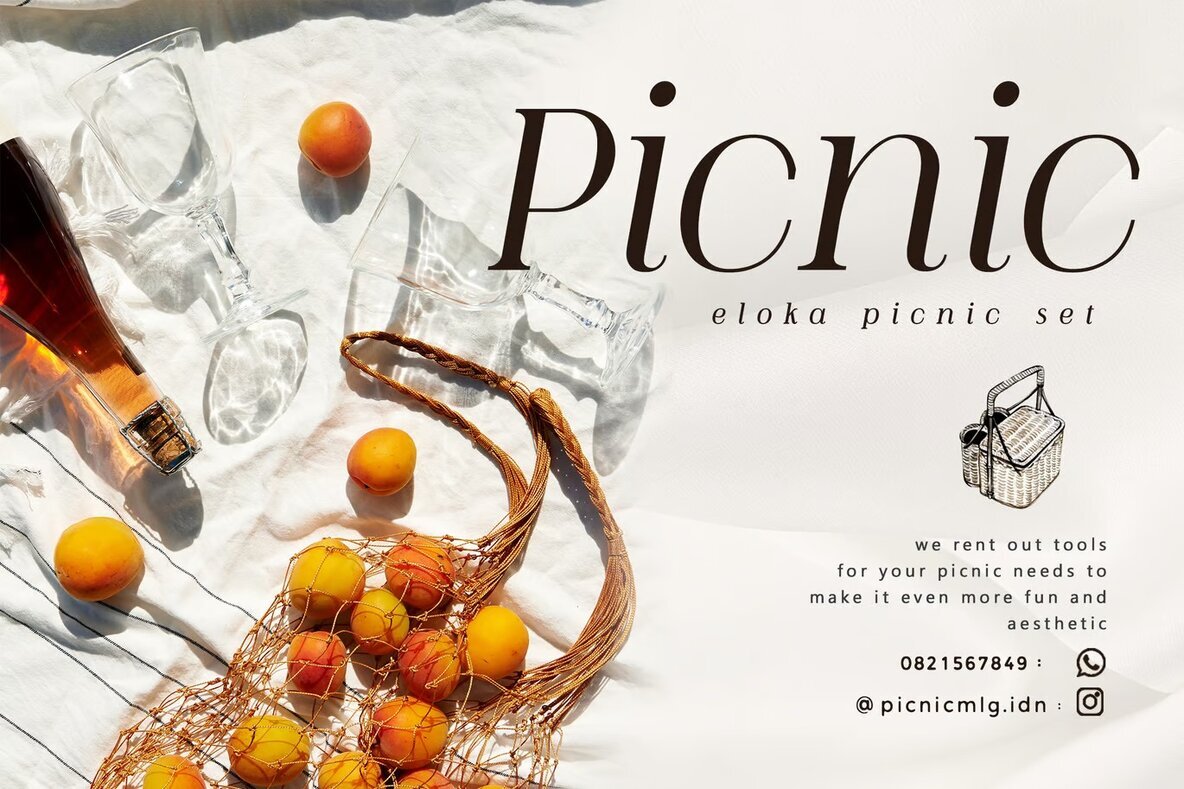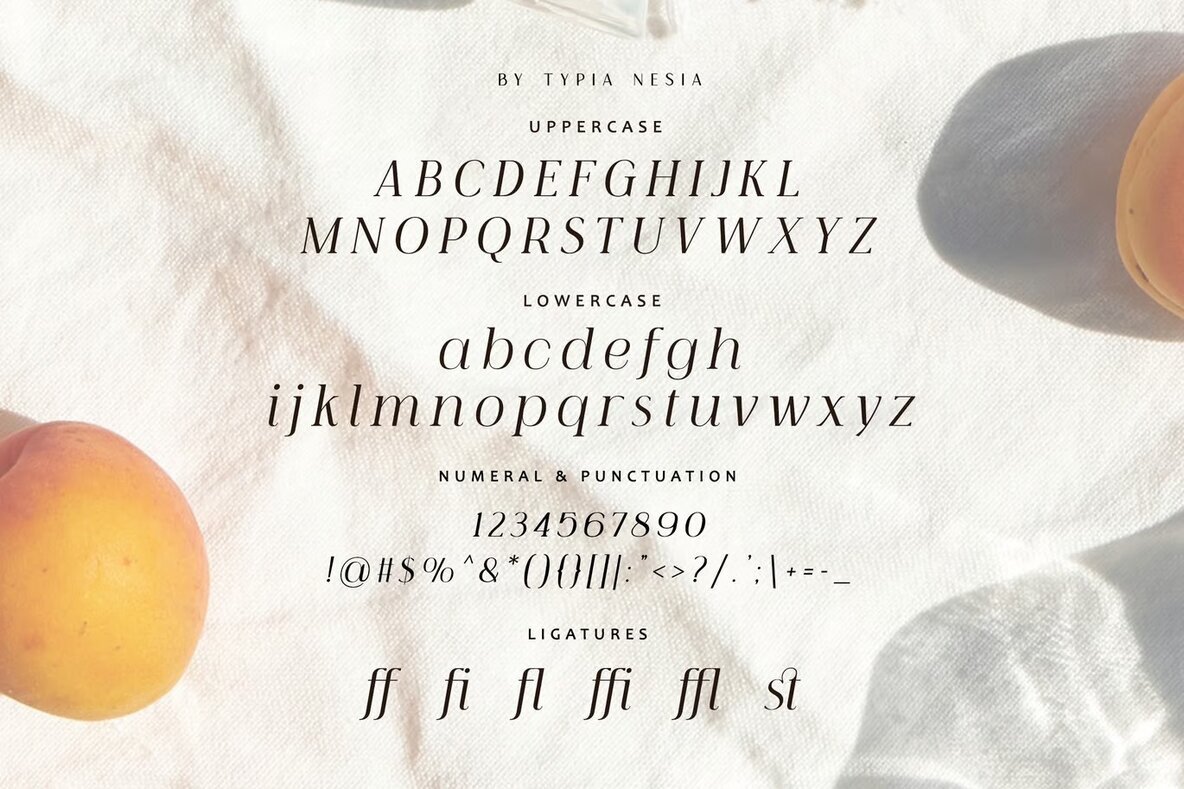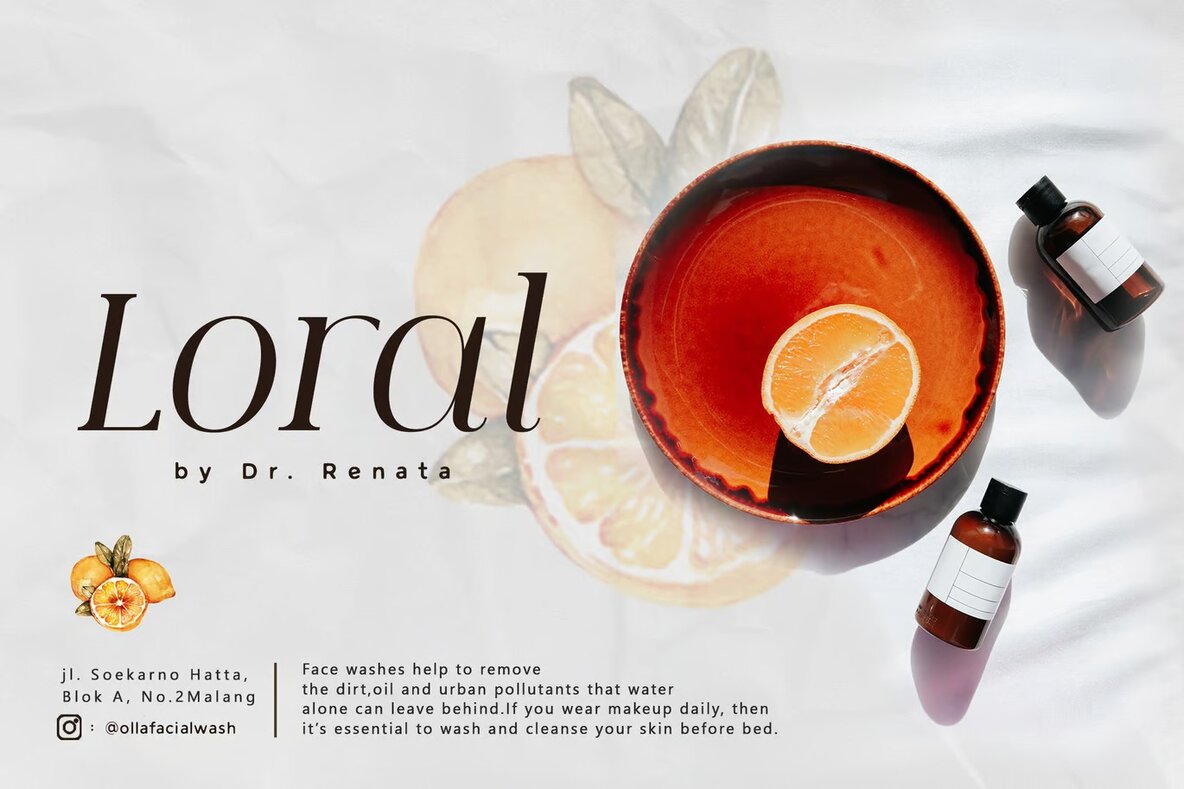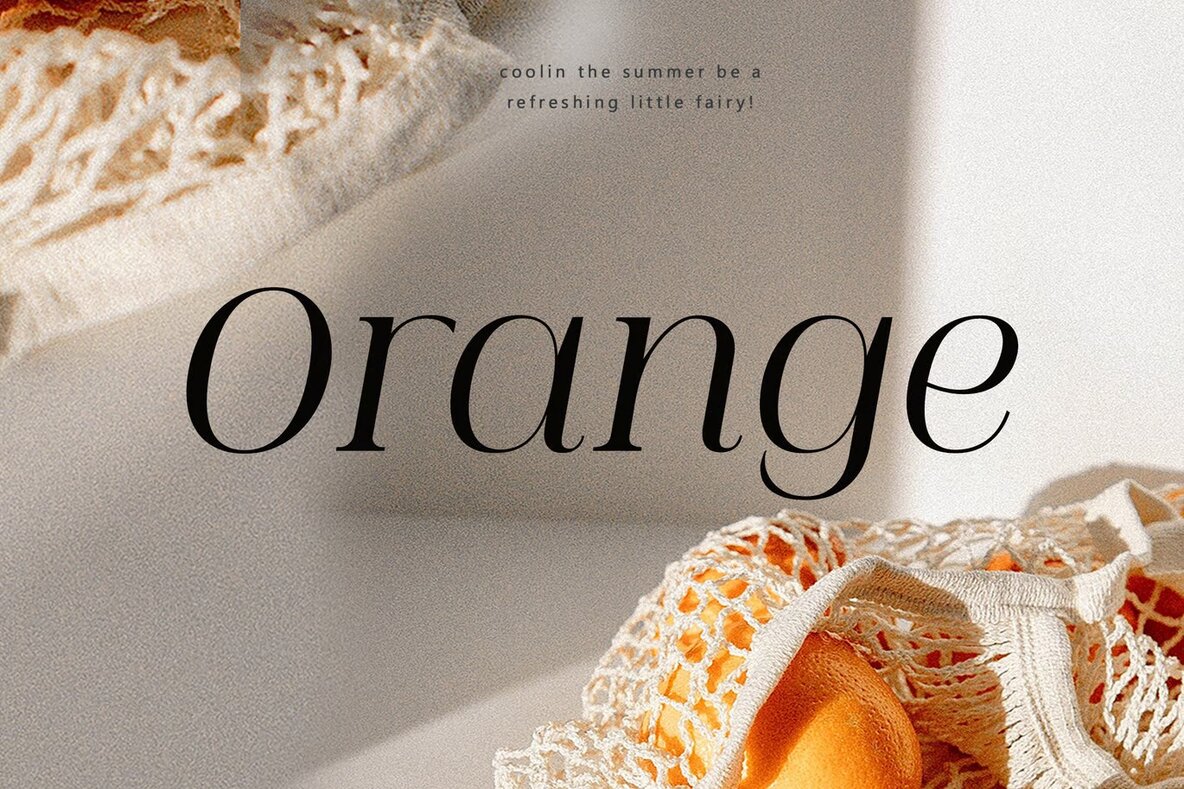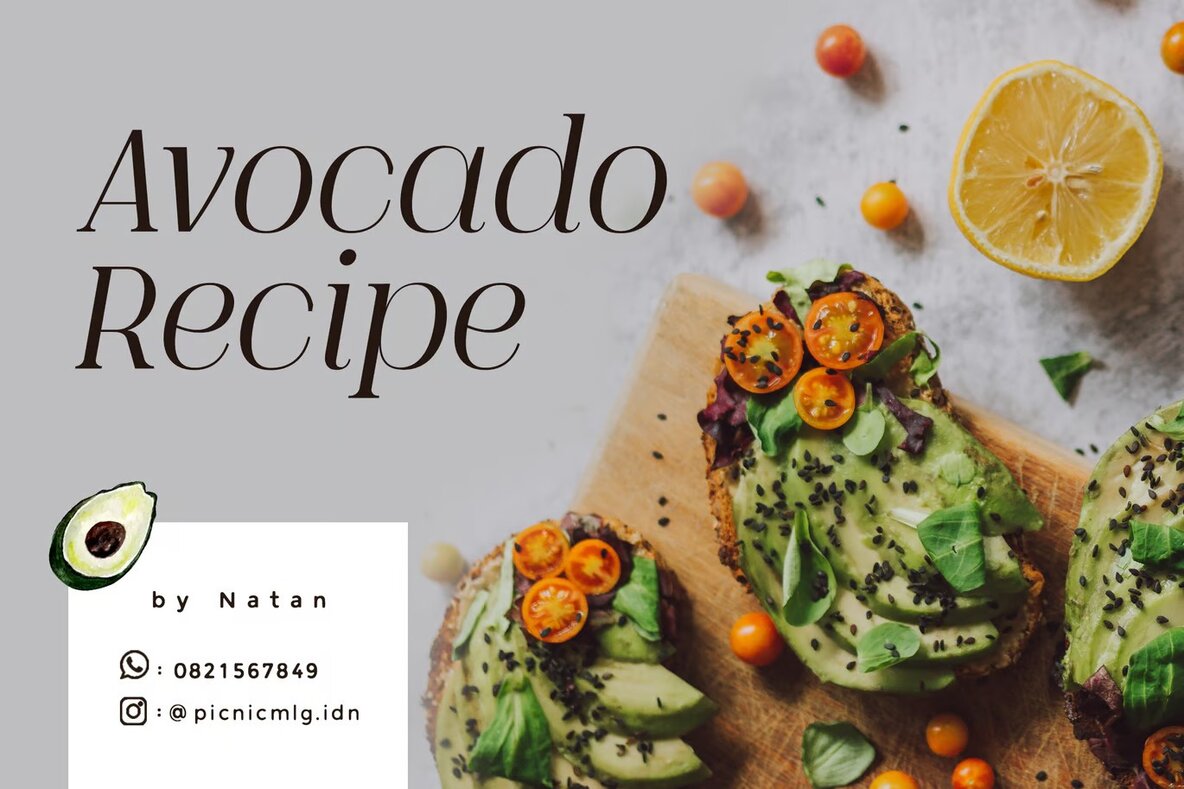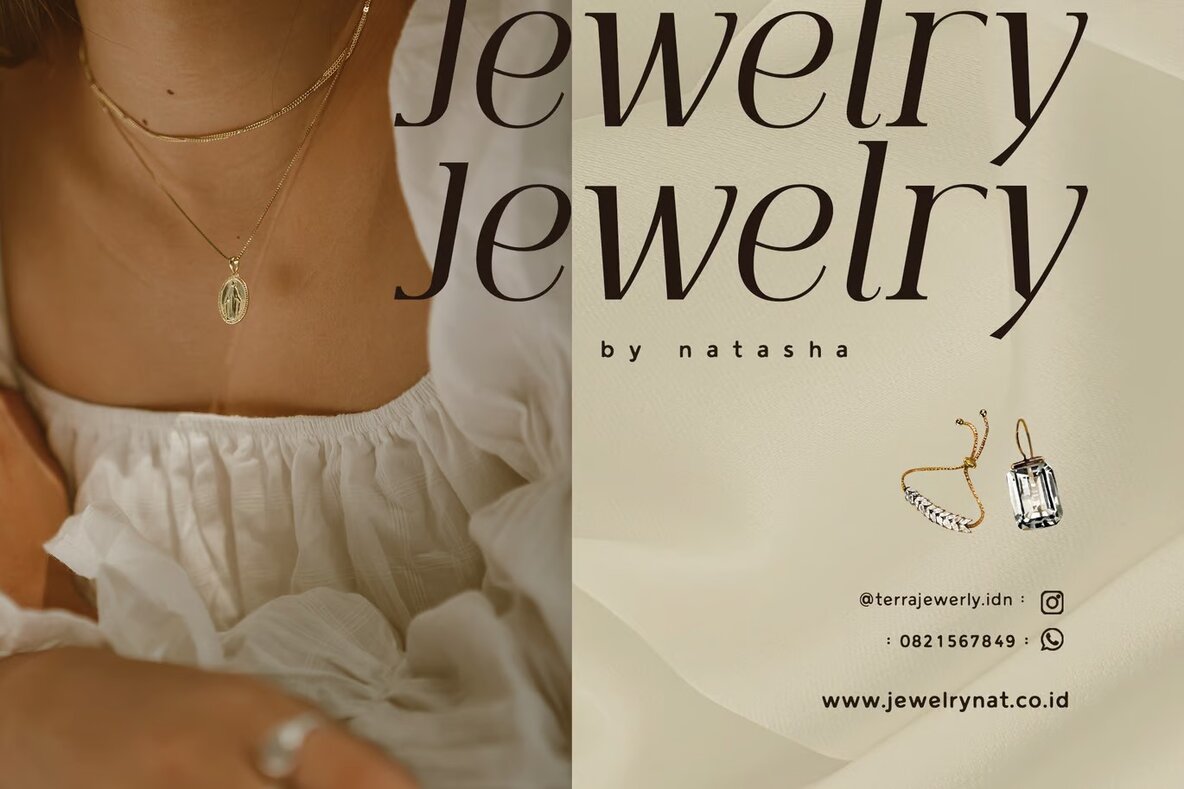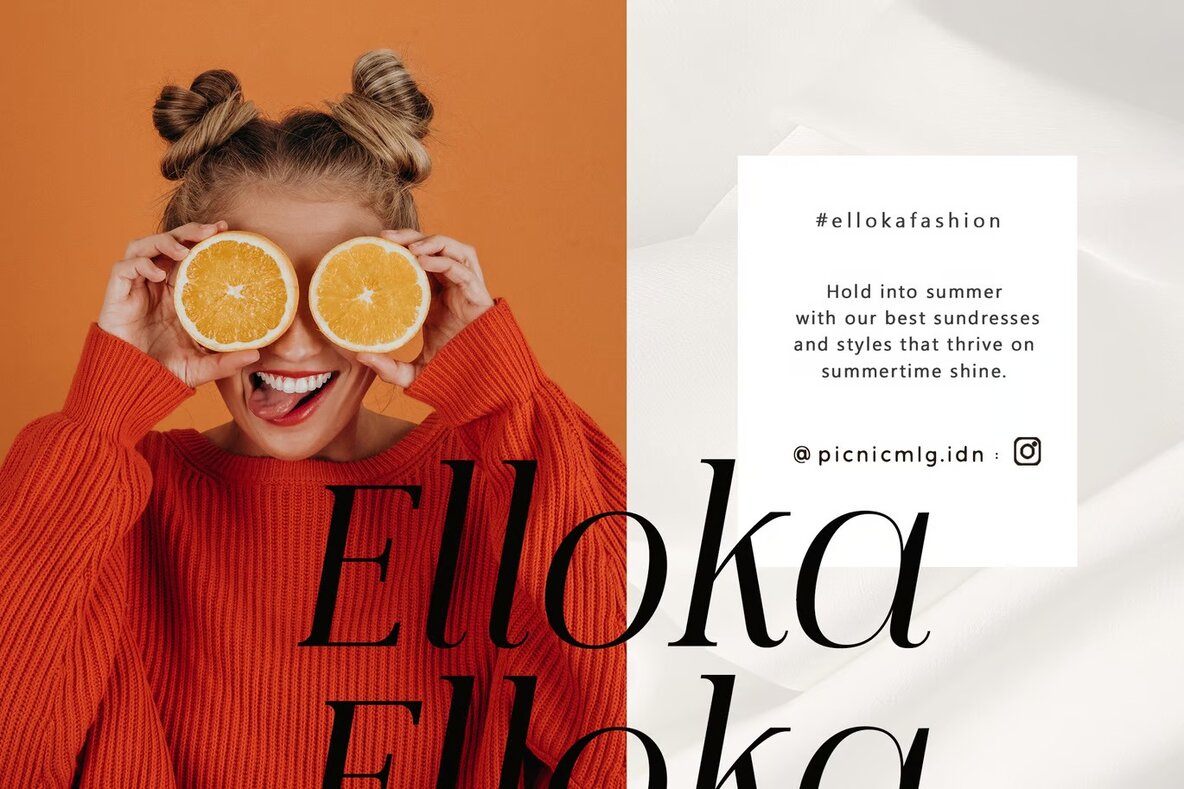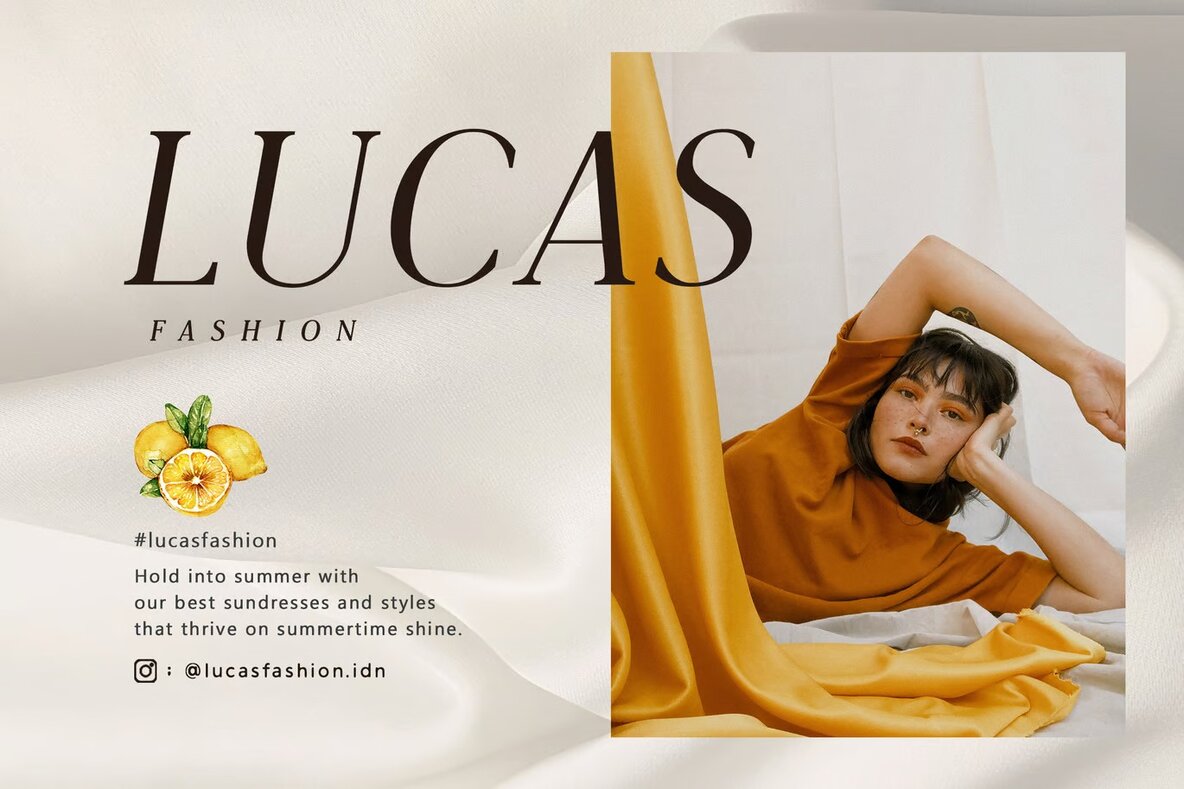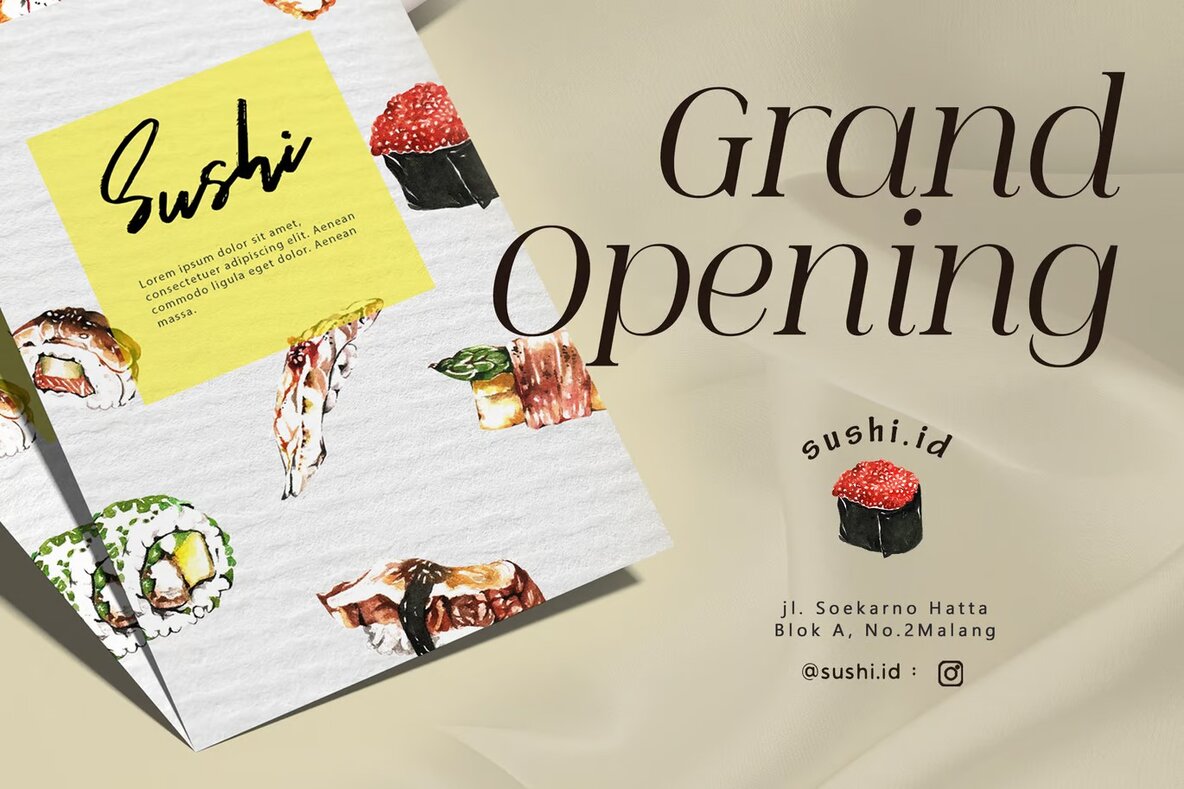
Shigatsu Font
Embrace the timeless elegance of Shigatsu Modern Italic, a classy serif font that encapsulates sophistication through its beautifully crafted italics. This font is a perfect choice for projects that require a touch of luxury, making it ideal for designing logos, branding materials, and editorial content that exude opulence. Its elegant style complements a wide range of applications, from fashion promotions and cosmetic brands to art gallery and museum branding.
Shigatsu is versatile enough to enhance the aesthetic appeal of stationery designs, blog layouts, and modern advertising mediums. Its distinguished serif technique makes it suitable for historical and architectural themes, boutique branding, and beyond. Perfect for special events, art quotes, and home decor, Shigatsu Serif Italic also lends itself well to book covers and card designs, ensuring each piece communicates a sense of high-end quality and timeless design.